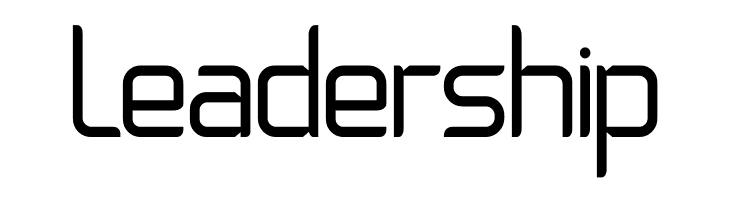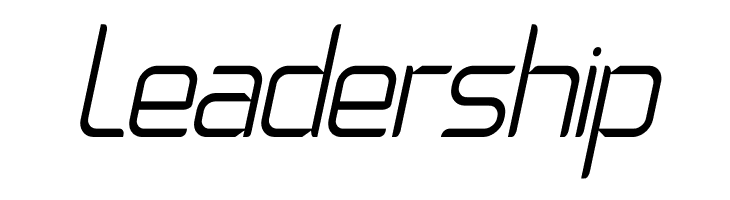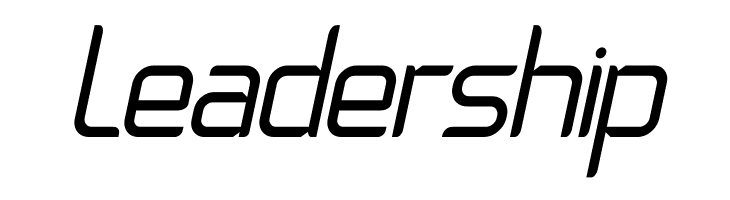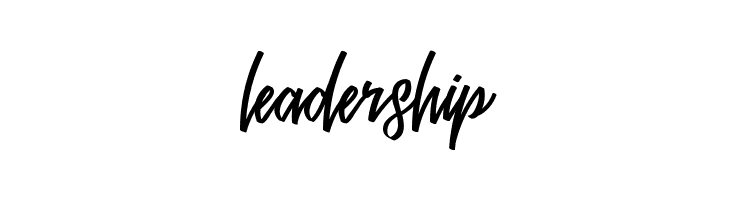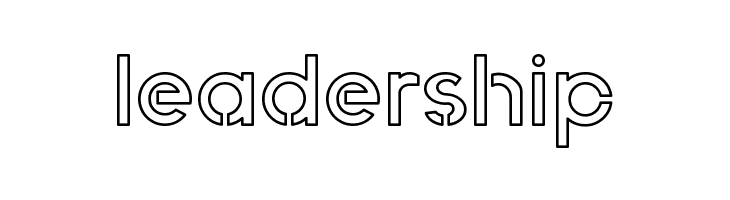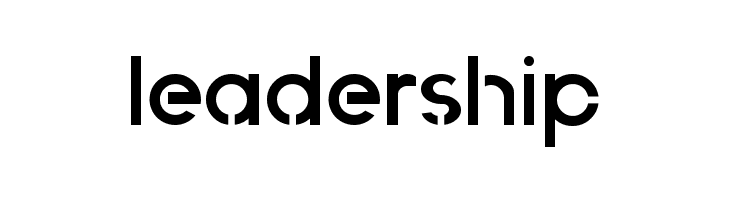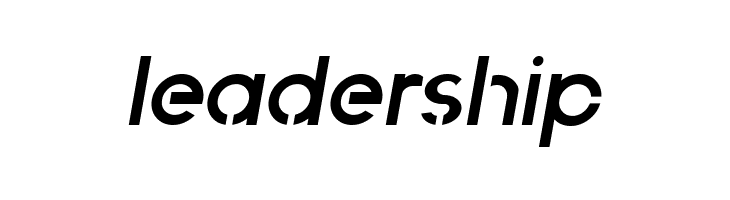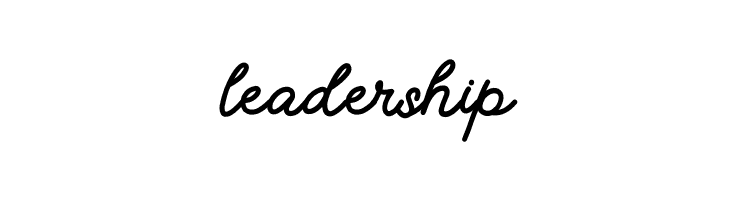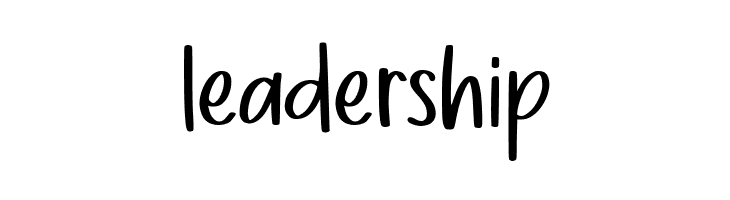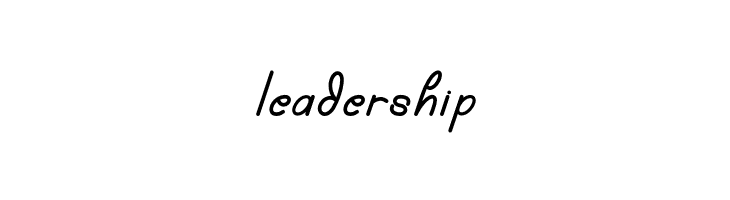
A bold, playful font with rounded, bubble-like characters and a whimsical style.
A bold, rustic font with a handcrafted, distressed texture.
A playful, handwritten font with a dynamic and artistic flair.
A playful, casual handwritten font with smooth, rounded letterforms.
A bold, playful, hand-drawn font with a whimsical style.
A playful, hand-drawn font with bold, rounded characters and a whimsical style.
A flowing, cursive font with elegant, slender strokes and a handwritten style.
A flowing, cursive script font with elegant, continuous strokes.
A bold, angular blackletter-style font with a modern twist.
A bold, geometric font with angular shapes and a modern aesthetic.
A bold, modern font with strong vertical lines and a slightly condensed style.
A playful, handwritten font with a whimsical and friendly style.
A casual, elegant handwritten font with fluid, flowing letterforms.
A bold, angular font with a modern, geometric style.
An elegant script font with fluid, cursive strokes and high contrast, ideal for formal and decorative uses.
A classic serif font with elegant, elongated letterforms and sharp serifs.
A bold, serif font with sharp angles and medium contrast, ideal for impactful headlines.
An elegant italic font with sharp serifs and high contrast, perfect for sophisticated designs.
A bold, brushstroke font with a rebellious, artistic flair.
A modern, handwritten font with a fluid and elegant style.
A bold, modern font with a slightly condensed style, ideal for impactful designs.
An ornate and elegant script font with flowing, interconnected letterforms.
A flowing, cursive script font with elegant, connected strokes.
A bold, monospaced font with a modern and vintage blend.
A sophisticated script font with flowing, connected strokes.
A graceful script font with flowing, interconnected letters and a sophisticated style.
A bold, rounded font with a playful, retro aesthetic.
A bold, hand-drawn font with a rugged and organic style.
A bold, playful font with rounded edges and a modern aesthetic.
A playful, rounded font with a hand-drawn appearance, perfect for casual and informal projects.
A playful, handwritten font with bold, rounded strokes and a casual, energetic feel.
A bold, playful font with rounded strokes and a friendly appearance.